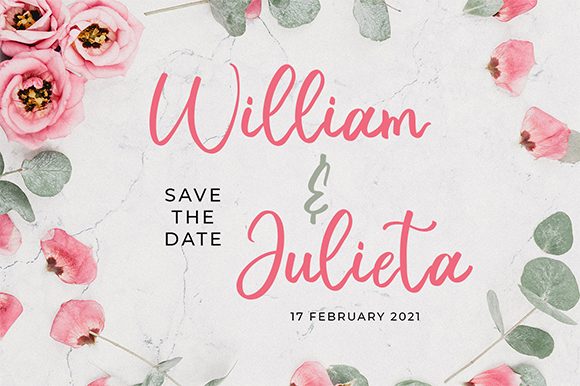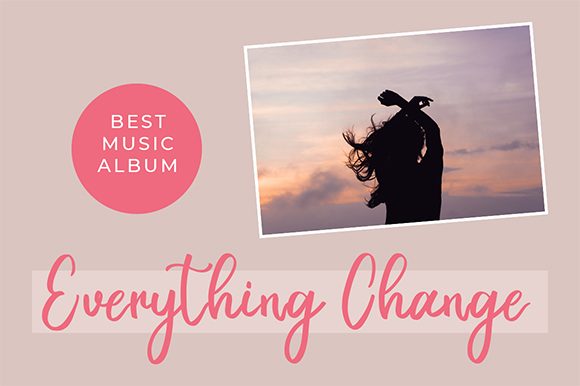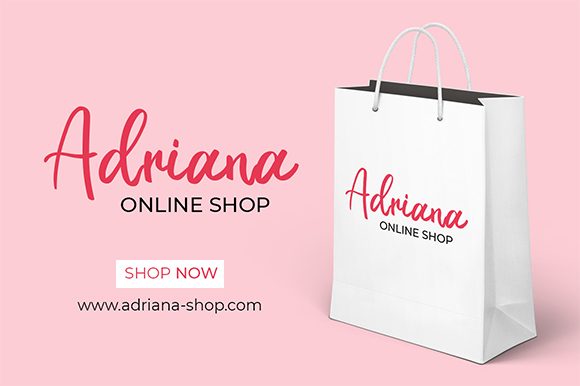
Dreamily Font: The Sweet and Delicate Handwritten Font for Romantic Designs
Are you looking for a font that can add a touch of romance and whimsy to your designs? Look no further than the Dreamily font! This sweet and delicate handwritten font is perfect for creating beautiful wedding invitations, cards, and other designs that require a personal and romantic touch.
What is Dreamily Font?
Dreamily is a modern handwritten font that is characterized by its dainty and joyful feel. The font features delicate lettering with a whimsical touch, making it perfect for designs that require a feminine and elegant look. The font is highly legible and can be used for a variety of design projects, from wedding invitations and cards to branding and packaging.
Key Features of Dreamily Font
- Sweet and delicate lettering: The Dreamily font features sweet and delicate lettering that is perfect for creating romantic and whimsical designs.
- Dainty and joyful feel: The font has a dainty and joyful feel that makes it perfect for designs that require a lighthearted and playful touch.
- Highly legible: The font is highly legible, making it easy to read and understand, even at small sizes.
- Perfect for romantic designs: The Dreamily font is perfect for creating romantic designs, such as wedding invitations, cards, and other designs that require a personal touch.
Uses of Dreamily Font
The Dreamily font is a versatile font that can be used for a variety of design projects. Here are some of the most popular uses of the font:
- Wedding invitations: The Dreamily font is perfect for creating beautiful and romantic wedding invitations that will set the tone for the big day.
- Cards: The font is also great for creating cards for special occasions, such as birthdays, anniversaries, and holidays.
- Branding and packaging: The Dreamily font can be used for branding and packaging projects that require a feminine and elegant look.
- Social media graphics: The font can also be used to create social media graphics, such as Instagram posts and Facebook graphics, that require a personal and romantic touch.
Tips for Using Dreamily Font
Here are some tips for using the Dreamily font in your designs:
- Use it with a simple background: The Dreamily font is delicate and dainty, so it’s best to use it with a simple background that won’t overpower the font.
- Experiment with colors: The font looks great in a variety of colors, so don’t be afraid to experiment and find the perfect color for your design.
- Use it for headings and titles: The Dreamily font is perfect for headings and titles, as it’s highly legible and can add a touch of romance and whimsy to your design.
The Dreamily font is a beautiful and delicate handwritten font that is perfect for creating romantic and whimsical designs. With its sweet and delicate lettering, dainty and joyful feel, and high legibility, it’s the perfect font for wedding invitations, cards, branding and packaging, and social media graphics. By following the tips outlined above, you can use the Dreamily font to create beautiful and romantic designs that will leave a lasting impression on your audience.